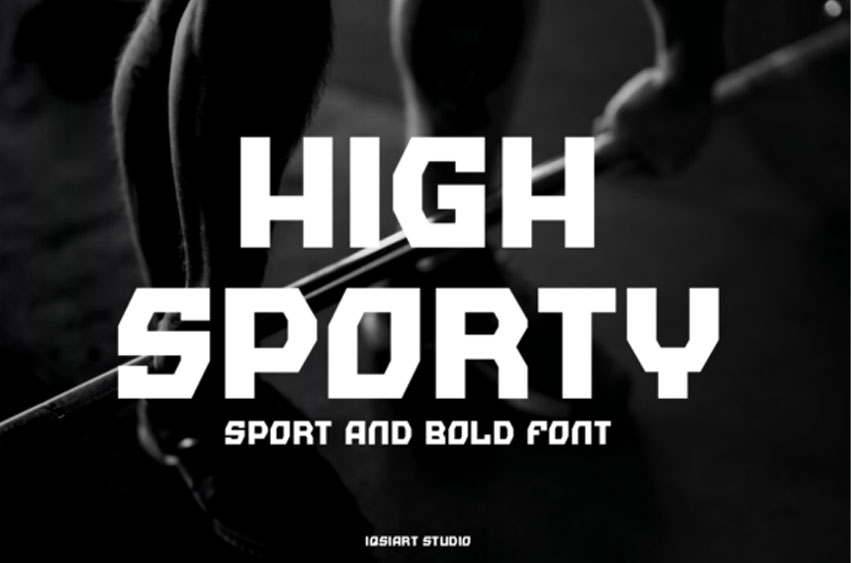
High Sporty Font
High Sporty Font is a bold and assertive sans serif font.
No matter the topic, this font will be an incredible asset to your font library, as it has the potential to elevate any creation.